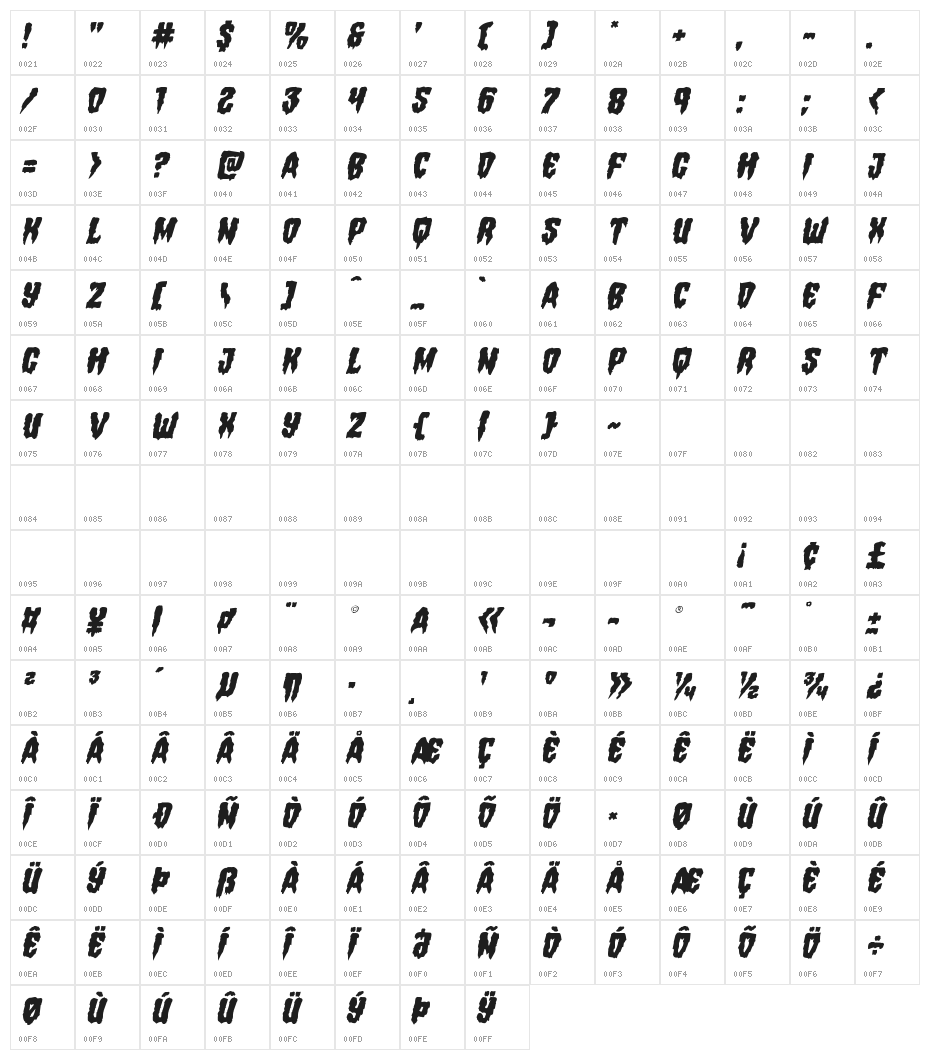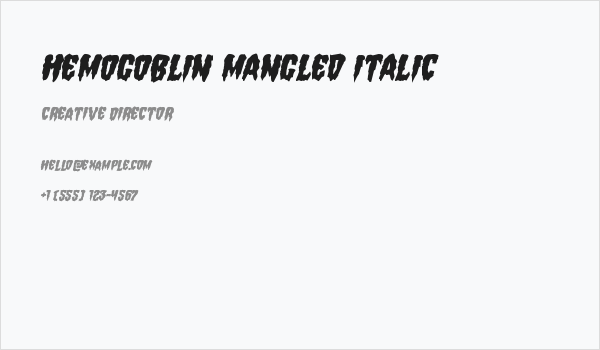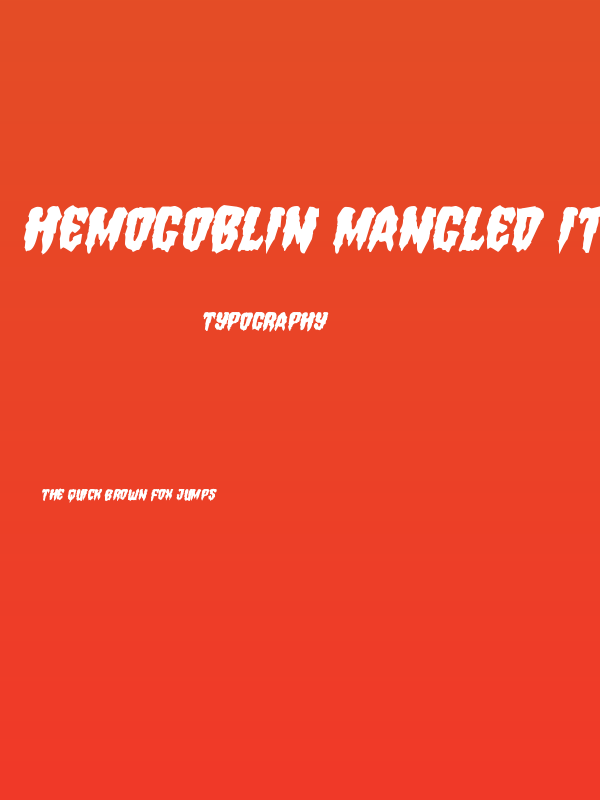
Hemogoblin Mangled Italic Font
Hemogoblin Mangled Italic Description
This font features a bold and jagged design, reminiscent of torn paper or rough brush strokes. The characters have an irregular and chaotic appearance, giving them a unique and edgy style. The uppercase and lowercase letters maintain a consistent ruggedness, while the numbers and special characters follow the same aesthetic. The overall look is dynamic and energetic, making it suitable for projects that require a strong visual impact. The italic slant adds to the sense of movement and intensity, enhancing its dramatic flair.
Proposed ProjectsIdeal for horror-themed posters, edgy branding, album covers, and any project needing a dramatic touch.